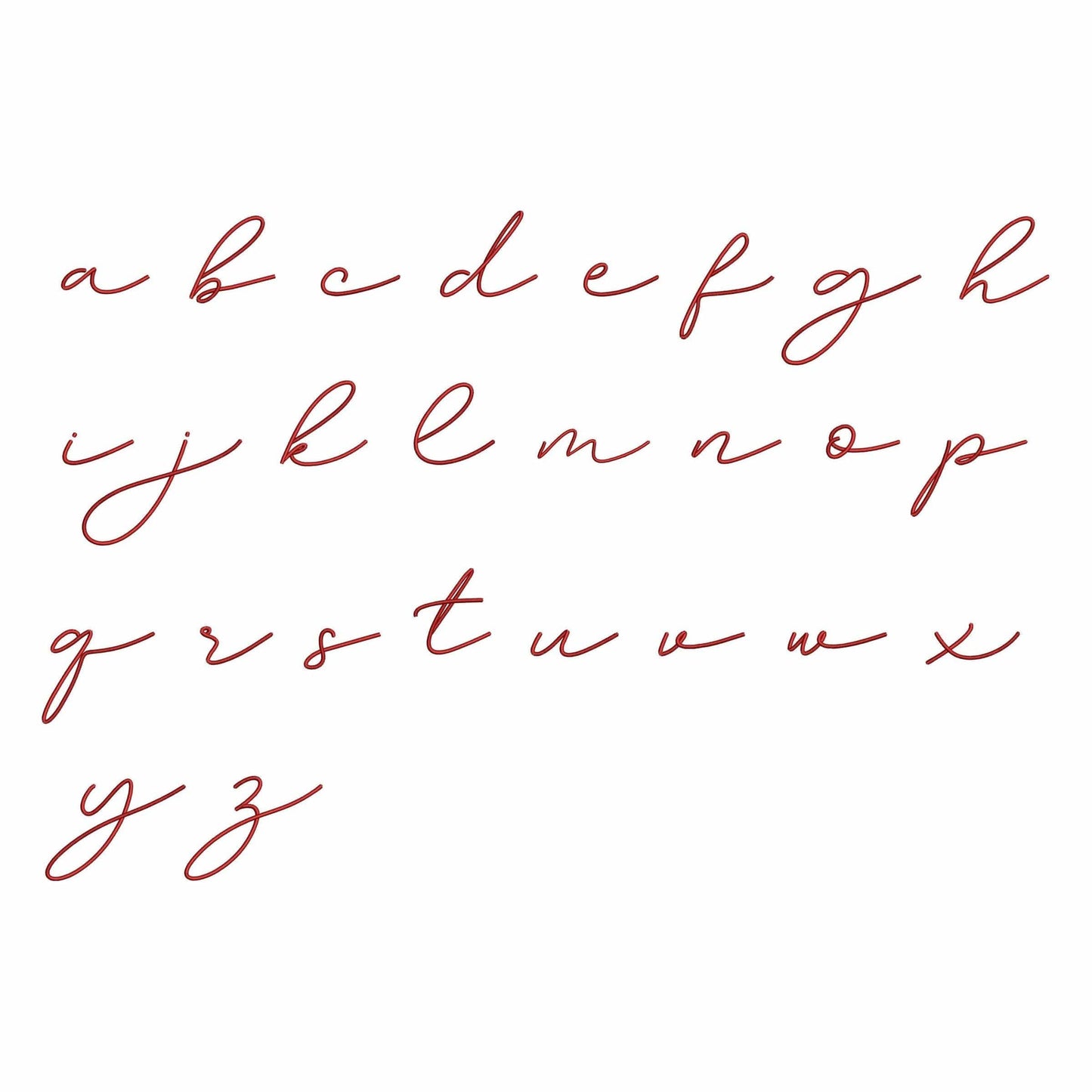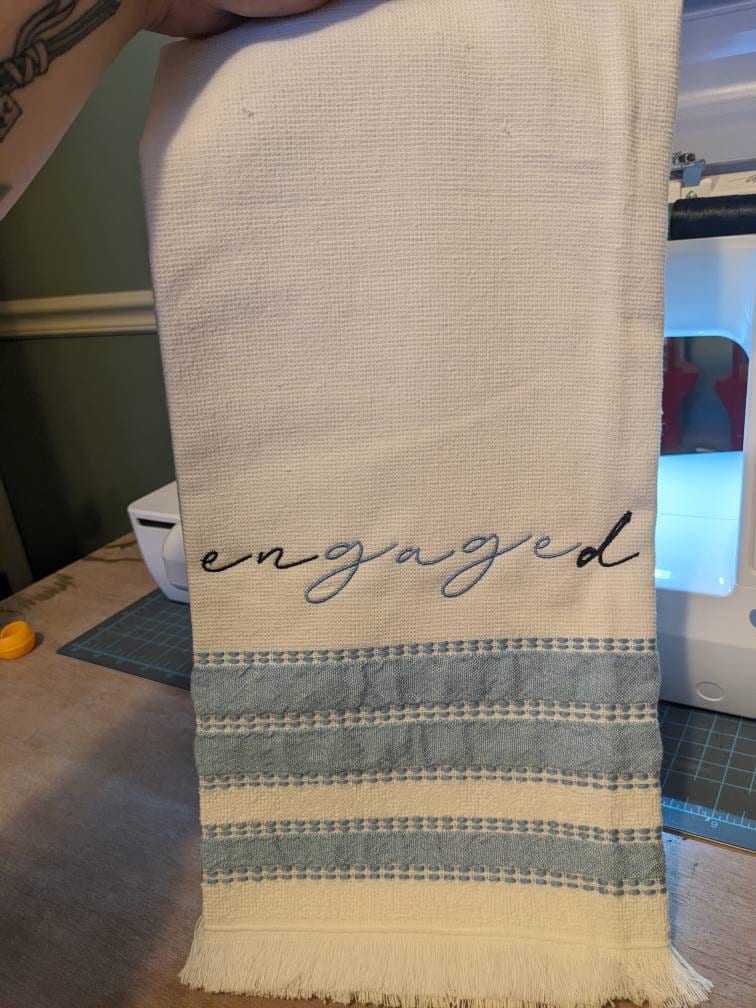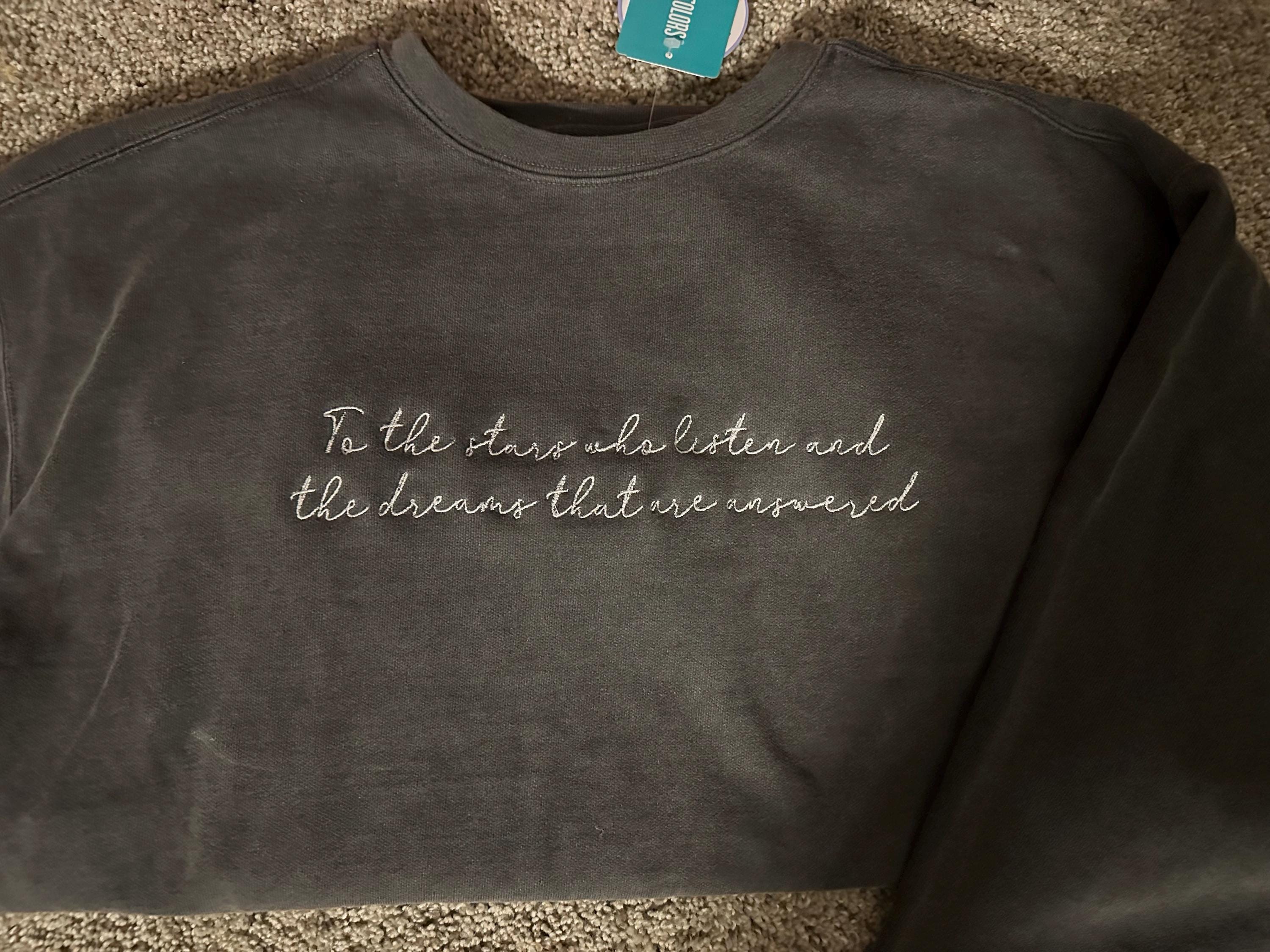
Anna - Embroidery font
This machine embroidery font works well for monograms, keepsakes, towels, shirts, gifts, and elegant custom embroidery.
A strong choice for makers who want cursive lettering for polished personalized projects and soft feminine details.